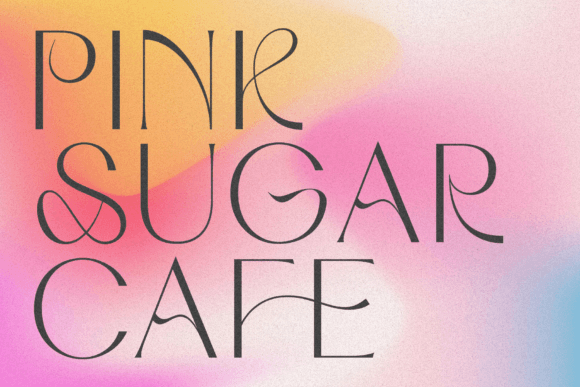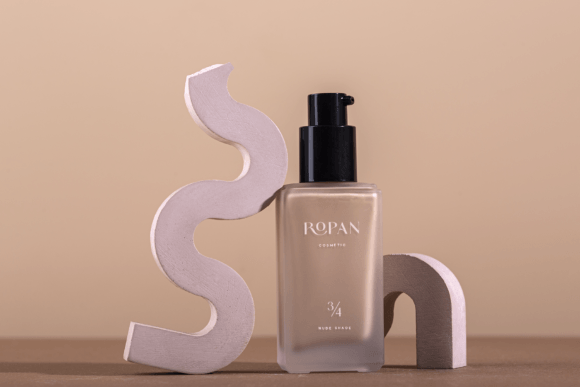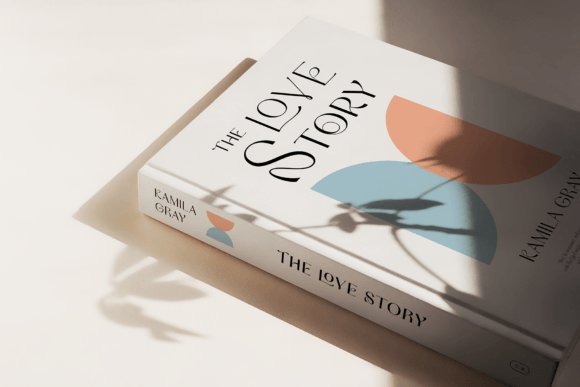
Rovela Font
Rovela is a bold and assertive serif font. No matter the topic, this font will be an incredible asset to your fonts’ library, as it has the potential to elevate any creation.